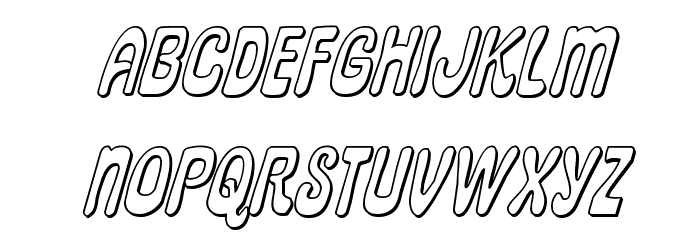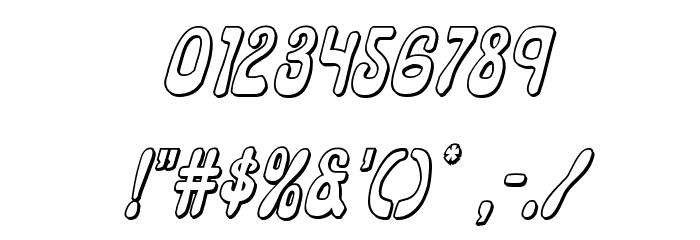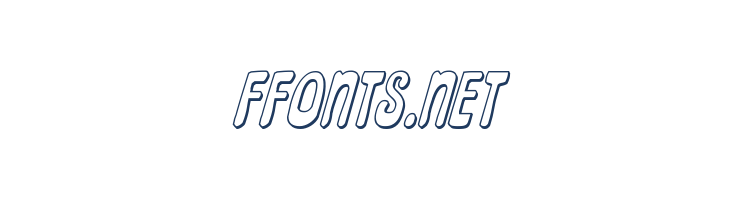
Pepperland 3D Italic Font
This font features a playful and dynamic 3D effect, with each character outlined to create a sense of depth and movement. The italicized style adds a forward-leaning energy, enhancing its lively appearance. The letters are bold and rounded, contributing to a friendly and approachable feel. The consistent stroke width maintains a uniform look, while the 3D outline provides a unique visual interest. This font is particularly eye-catching and can be used to draw attention in various design contexts.
A playful 3D outlined italic font with bold, rounded characters.
- Proposed Projects: Ideal for children's book covers, playful branding, posters, and any design needing a fun and engaging typeface.